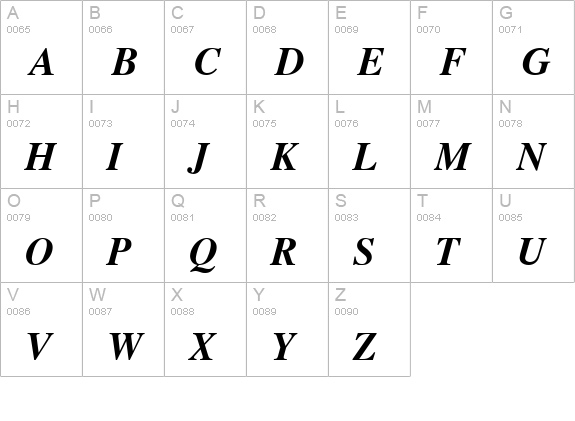
Toronto Bold Italic Font Details
Toronto Bold Italic is a strong, high-contrast, italic variant in the Toronto typeface family \xE2\x80\x94 well suited to headlines, attention-grabbing titles, and strong calls-to-action.
Introducing Toronto Bold Italic, a stunning and versatile font that effortlessly combines boldness and elegance. This font is the perfect choice for those seeking a modern and distinctive look for their designs. With its bold and italicized characters, Toronto Bold Italic exudes confidence and sophistication, making it ideal for branding, headlines, posters, and more. What sets Toronto Bold Italic apart is not just its captivating aesthetics, but also its accessibility. We are thrilled to announce that Toronto Bold Italic is available to download for free at FontsMarket.com. Yes, you heard it right - this remarkable font can be yours at absolutely no cost. Imagine the creative possibilities that open up when you have access to such a high-quality font without breaking the bank. Whether you are a professional designer or an enthusiastic hobbyist, Toronto Bold Italic enables you to bring your visions to life with its bold and eye-catching presence. Crafted with precision and attention to detail, Toronto Bold Italic boasts clean lines and perfectly balanced letterforms, guaranteeing legibility and readability across various mediums and sizes. Its bold weight adds a touch of authority, while the italicized style infuses a sense of elegance and flair. Featuring a wide range of characters and punctuation marks, Toronto Bold Italic offers versatility and flexibility in your designs. From captivating headlines to striking logos, this font will undoubtedly make a lasting impression on your audience. Download Toronto Bold Italic today from FontsMarket.com and experience the freedom to create captivating designs that truly stand out. Immerse yourself in this font's distinct personality and let it unleash your creativity. Don't miss out on this incredible opportunity to own a font that combines boldness, elegance, and accessibility - all for free.